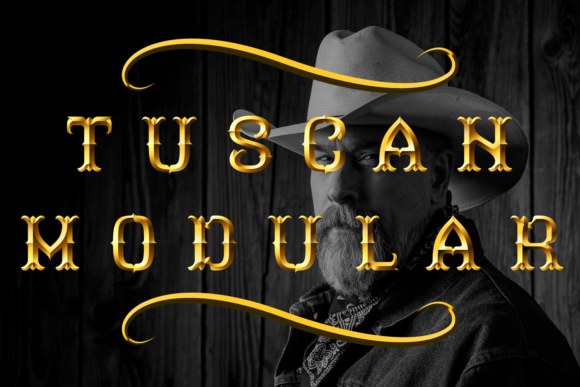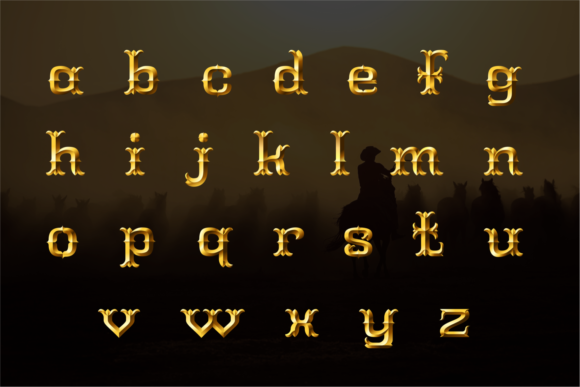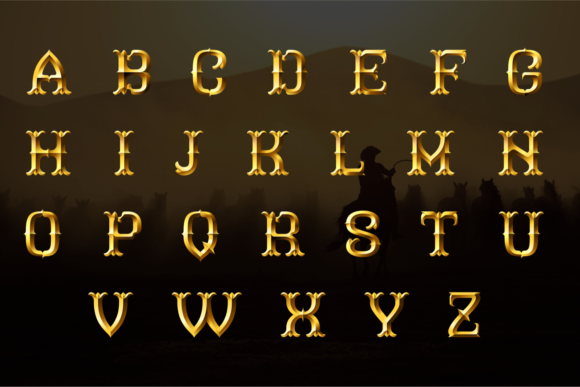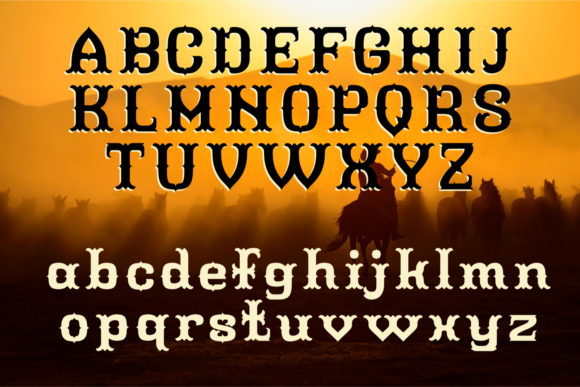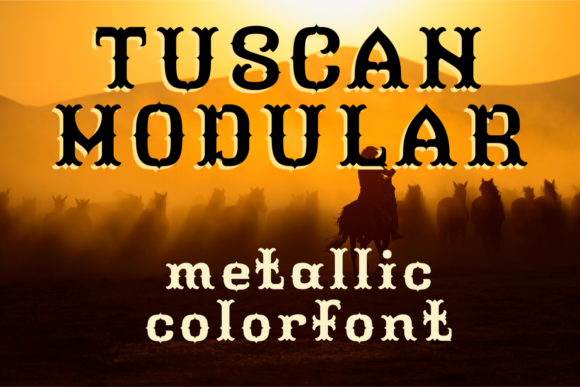
About Tuscan Modular Font
Introducing Tuscan Modular, an exquisite SVG color font with a golden etched effect. Inspired by the charm of the Old West, this font features geometrically constructed letters that offer a clean and consistent look. The use of SVG gradients adds a touch of metallic elegance, giving the letters a stunning etched effect.
With its golden hue and ornamental design, Tuscan Modular is perfect for creating a timeless and sophisticated aesthetic. The font shines particularly well on dark backgrounds, where it can truly stand out and make a statement. Whether you’re designing a vintage-inspired poster, a luxury logo, or an ornate invitation, Tuscan Modular adds a touch of elegance and character to your creations.
Embrace the timeless charm of the Old West with Tuscan Modular. Let its golden and etched letters transport you to a bygone era and add a touch of sophistication to your design projects. Whether you’re working on branding, packaging, posters, or any other creative endeavor, Tuscan Modular is sure to captivate and leave a lasting impression.
Elevate your designs with the golden elegance of Tuscan Modular, and experience the beauty of its ornamental and geometric letters. Create stunning visuals that exude a sense of history and craftsmanship, and let the font become a key element in your design toolbox.